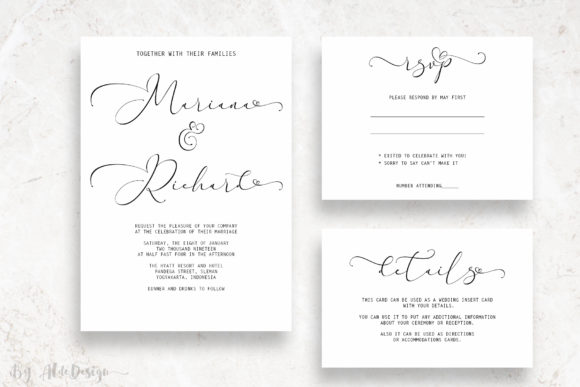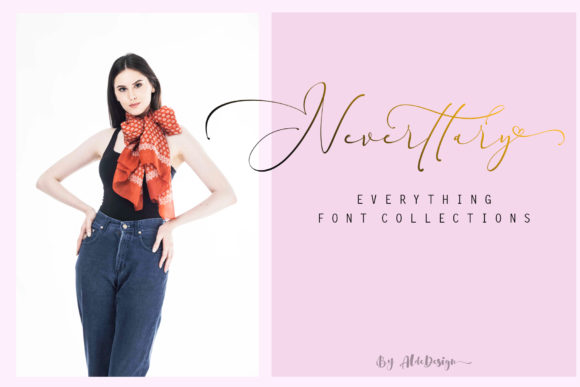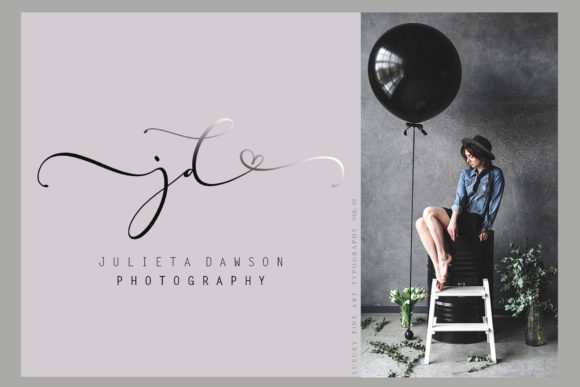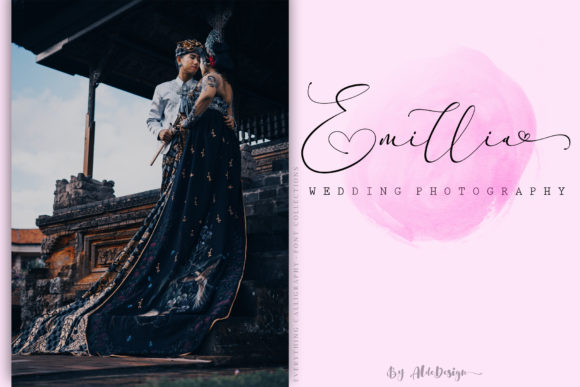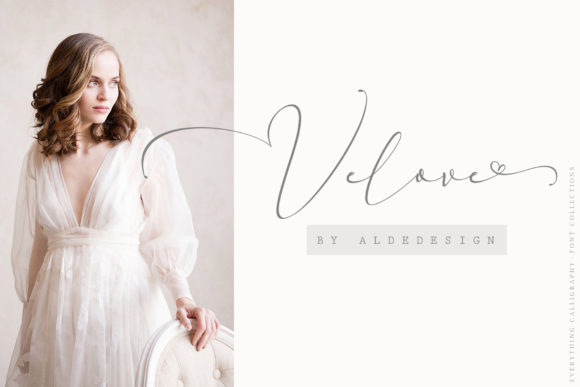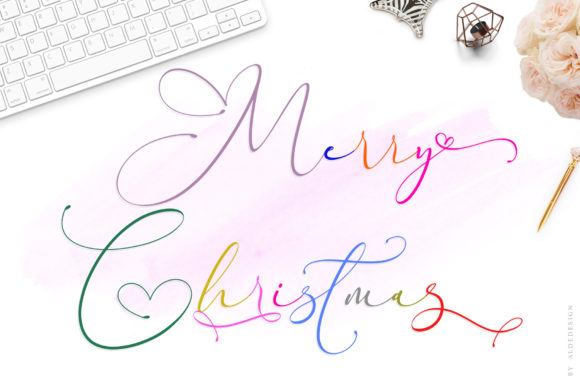
Introducing Everything Font: The Ultimate Calligraphy Font for Modern Designers
The Everything font is a stylish calligraphy font that has taken the design world by storm. Its unique features, smooth lines, and modern look make it a versatile font that can be used for a wide range of purposes. In this article, we’ll dive into the world of Everything Font and explore its features, uses, and benefits for designers and crafters.
What is Everything Font?
The Everything font is a calligraphy font that boasts a varying baseline, giving it a distinctive and elegant look. Its smooth lines and modern design make it perfect for creating stunning headings, logos, and branding materials. This font is designed to make a statement, and its unique features set it apart from other fonts in the market.
Key Features of Everything Font
- Varying Baseline: The Everything font features a varying baseline, which gives it a dynamic and elegant look.
- Smooth Lines: The font has smooth lines that make it perfect for creating beautiful headings, logos, and branding materials.
- Modern Design: The Everything font has a modern design that makes it perfect for contemporary designs.
Uses of Everything Font
The Everything font is incredibly versatile and can be used for a wide range of purposes, including:
- Headings: Use the Everything font to create stunning headings for your website, blog, or marketing materials.
- Weddings and Invitations: The Everything font is perfect for creating beautiful wedding invitations, save-the-date cards, and other wedding-related materials.
- Signatures: Add a touch of elegance to your email signatures or business cards with the Everything font.
- Logos and Branding: Use the Everything font to create unique and memorable logos and branding materials for your business.
- T-Shirts and Merchandise: The Everything font is perfect for creating stunning t-shirts, mugs, and other merchandise.
- Letterheads: Use the Everything font to create elegant letterheads for your business or personal correspondence.
Benefits of Using Everything Font
The Everything font offers several benefits for designers and crafters, including:
- Unique Look: The Everything font has a unique look that sets it apart from other fonts in the market.
- Versatility: The font is incredibly versatile and can be used for a wide range of purposes.
- Elegance: The Everything font adds a touch of elegance to any design, making it perfect for high-end branding and marketing materials.
- Easy to Read: Despite its elegant look, the Everything font is easy to read, making it perfect for body text and headings.
Tips for Using Everything Font
Here are some tips for using the Everything font effectively:
- Use it Sparingly: Use the Everything font sparingly to make a statement. Overusing the font can make your design look cluttered and overwhelming.
- Pair it with Other Fonts: Pair the Everything font with other fonts to create a unique and interesting look.
- Experiment with Colors: Experiment with different colors to find the perfect combination that works with the Everything font.
The Everything font is a stylish calligraphy font that offers a unique and elegant look. Its versatility, smooth lines, and modern design make it perfect for a wide range of purposes, from headings and logos to weddings and merchandise. With its ease of use and flexibility, the Everything font is a must-have for designers and crafters looking to add a touch of elegance to their designs.